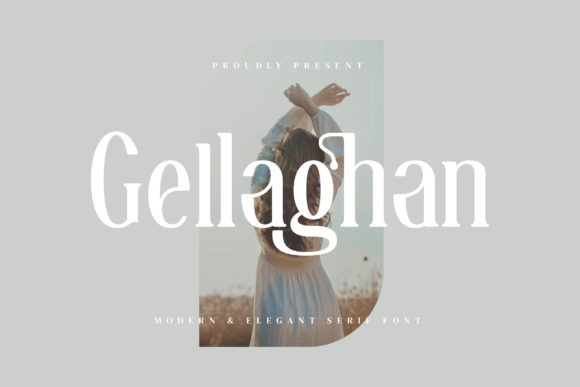
Indulge in the allure of Gellaghan Font, a captivating serif masterpiece that will transform your typography art into a visual symphony. Crafted with meticulous precision by the renowned Aqeel_Art, Gellaghan is not merely a font; it's an invitation to unleash your creativity and leave an unforgettable impression on the world.
Step into a realm where sophistication meets versatility, where every letter dances upon the page with an enchanting grace. Gellaghan's timeless elegance is woven into every curve and stroke, promising to elevate your designs to breathtaking heights.
Immerse yourself in the font's rich character set, effortlessly accessible through its PUA encoding. Unleash a world of possibilities, adorning your projects with a kaleidoscope of glyphs and swashes that will captivate your audience.
With Gellaghan, the boundaries of creativity dissolve. Let your imagination soar as you craft logos that command attention, headlines that whisper intrigue, and social media posts that ignite conversations. Elevate your branding to new heights, leaving an indelible mark on the digital landscape.
Embrace the allure of Gellaghan Font today. It's not just a font; it's the key to unlocking the extraordinary.